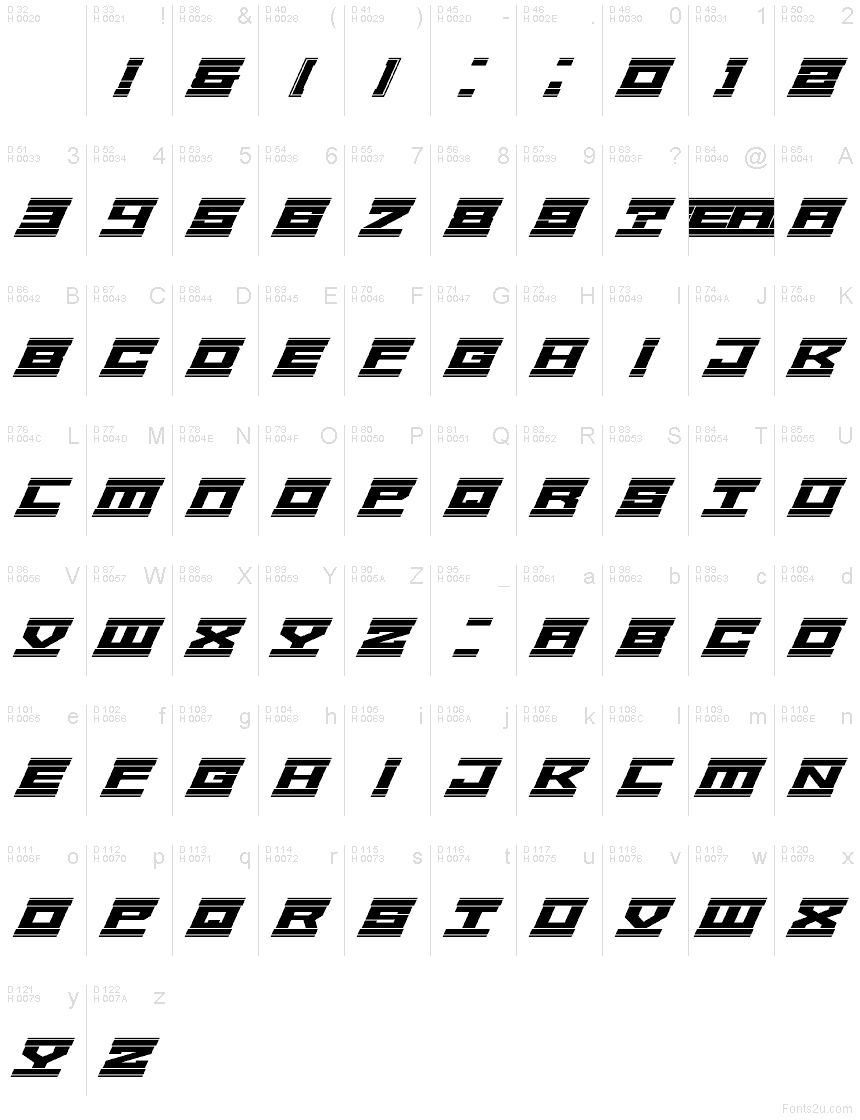
Gear
Gear6 font by Youssef Habchi is a free techno display font. Built for velocity, its forward-thrust italics, razor-cut angles, and racing-stripe counters create a turbocharged rhythm that reads fast and hits hard. The heavy, machined shapes stay crisp at scale, while the internal slashes add gleam and motion—like chrome catching light on a moving chassis.
Using Gear6, headlines snap with momentum on esports logos, racing posters, sci‑fi titles, tech branding, streaming overlays, and bold album art. This free font shines on short, high-impact words and stacked wordmarks; set it big and tight. Pair with a clean grotesk or neutral sans for body copy to keep the spotlight on the speed.